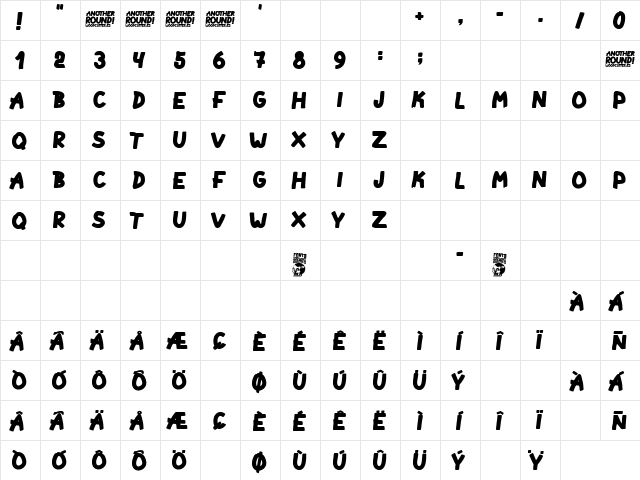
Another Round Regular
| Designer | Woodcutter Manero |
Design Context for Another Round Typeface
Another Round uses gentle rounded endings to create a warm, inviting typographic personality — less corporate than geometric sans, more refined than playful display fonts.
A natural fit for tech startups, health and wellness brands, children's products, and friendly consumer apps.
Font Pairing: Pairs well with a rounded or humanist sans for body copy, maintaining the friendly tone without relying on Another Round to carry extended reading.
Pro Tip: Pair Another Round with a geometric sans for a balanced system — the rounded softness works as a warm counterpoint to harder-edged companions.